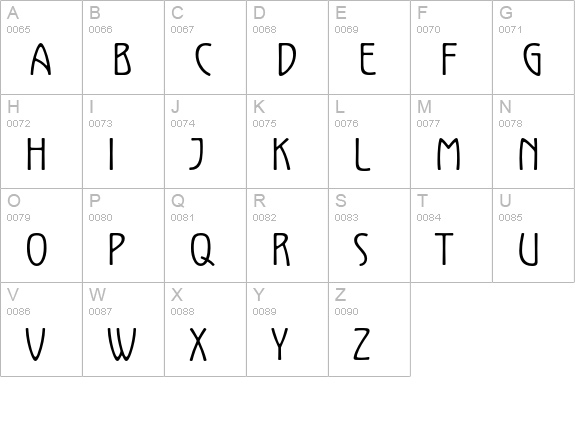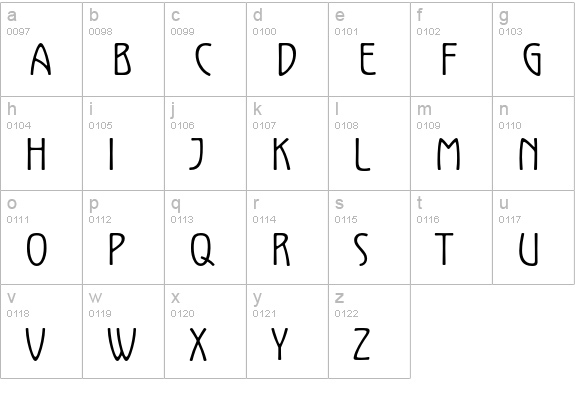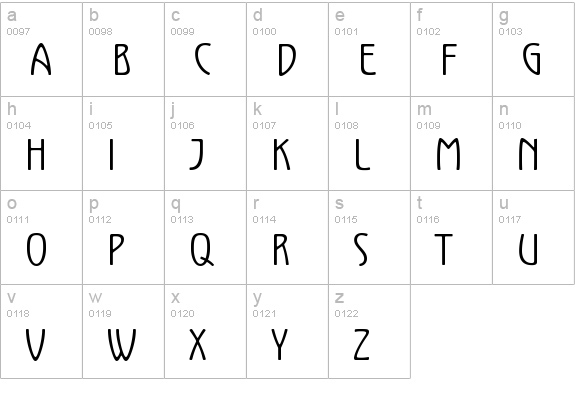
Kolo LP Narrow Font Details
Kolo LP Narrow is a distinctive, condensed-width variant in the Kolo typeface family \xE2\x80\x94 well suited to design and typography projects.
Kolo LP Narrow font is a sleek and sophisticated typeface that exudes modernity and elegance. Its slender letterforms and clean lines make it perfect for a wide range of design projects, from branding to editorial layouts. The font's narrow proportions give it a unique and distinctive look, making it stand out from the crowd. Best of all, Kolo LP Narrow font is available for free download at FontsMarket.com! This means you can easily access and use this stunning typeface in your projects without any cost. Whether you're working on a website, poster, or logo design, Kolo LP Narrow font will add a touch of style and sophistication to your work. Download it now and elevate your designs with this beautiful and versatile font.